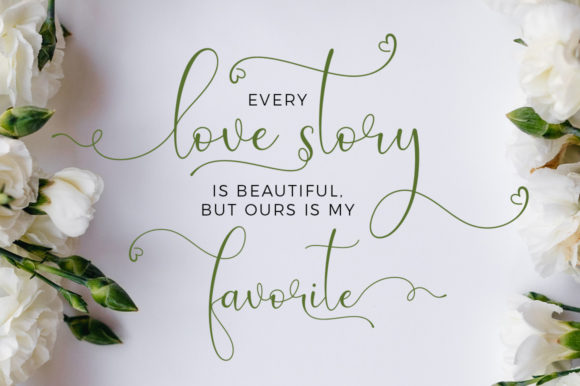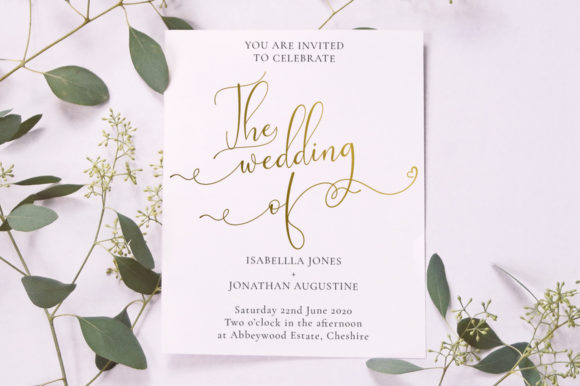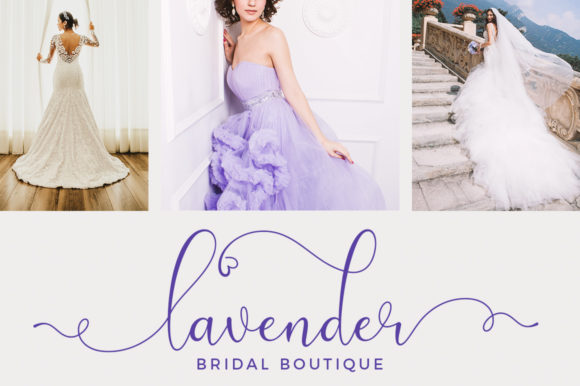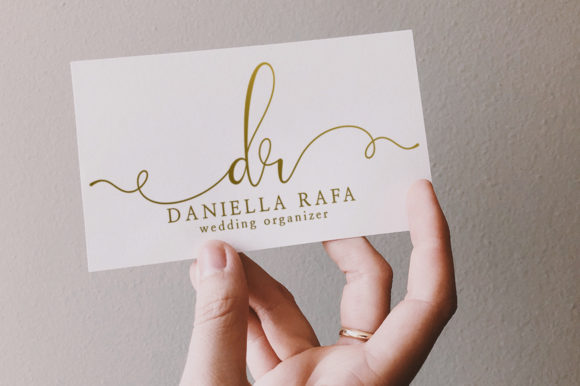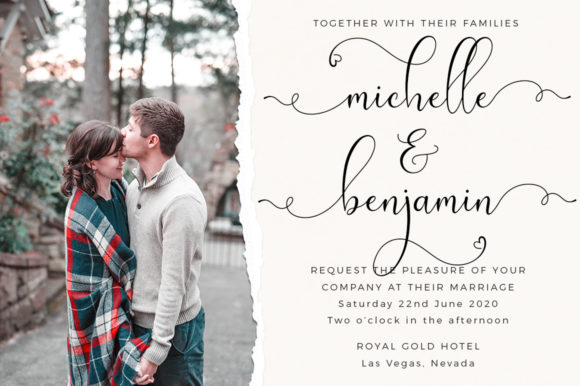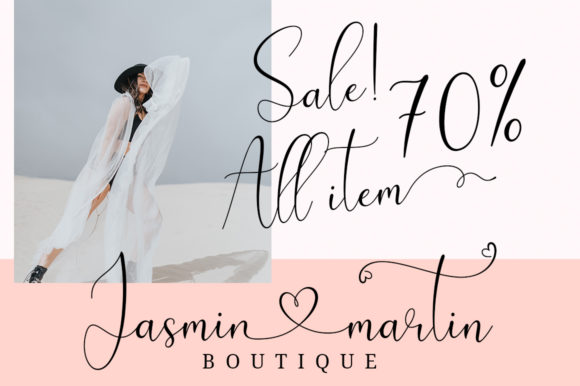
Introduction to My Favorite Font
My Favorite is a tall and modern calligraphy font.
It looks stunning on wedding invitations, thank you cards, quotes, greeting cards, logos, business cards and every other design which needs a handwritten touch This font is PUA encoded which means you can access all of the glyphs and swashes with ease.